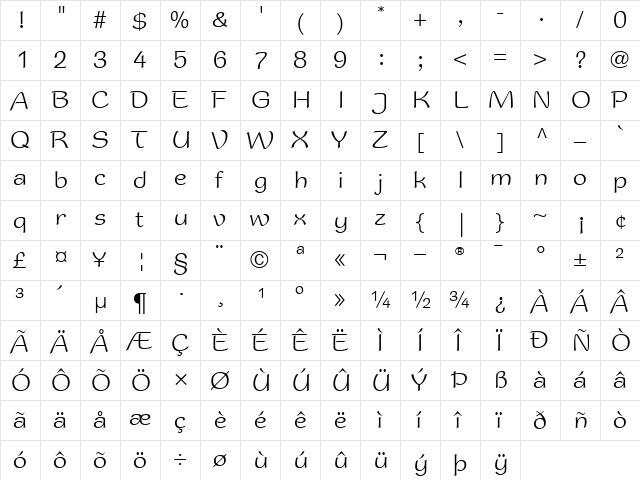
Roundy Roman Regular
Design Context for Roundy Roman Typeface
Roundy Roman uses gentle rounded endings to create a warm, inviting typographic personality — less corporate than geometric sans, more refined than playful display fonts.
Well-suited to UI design, mobile interfaces, and any brand that wants approachability without sacrificing clarity.
Font Pairing: Pairs well with a rounded or humanist sans for body copy, maintaining the friendly tone without relying on Roundy Roman to carry extended reading.
Pro Tip: Use Roundy Roman for UI elements, app interfaces, and anywhere a friendly, approachable tone needs to be maintained without sacrificing clarity.